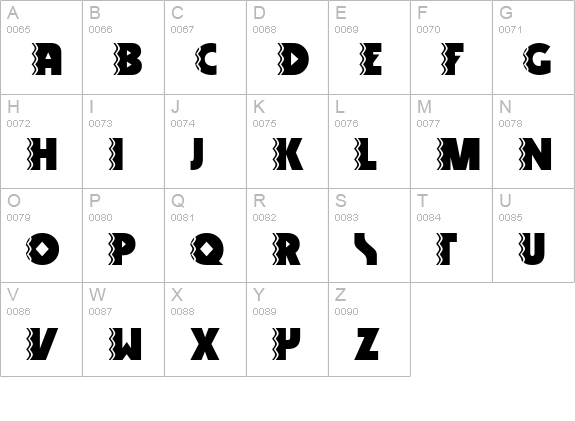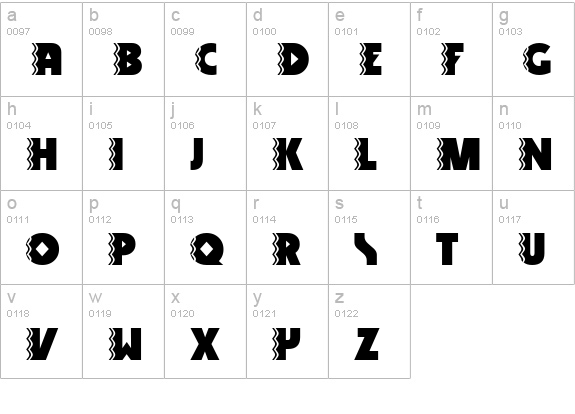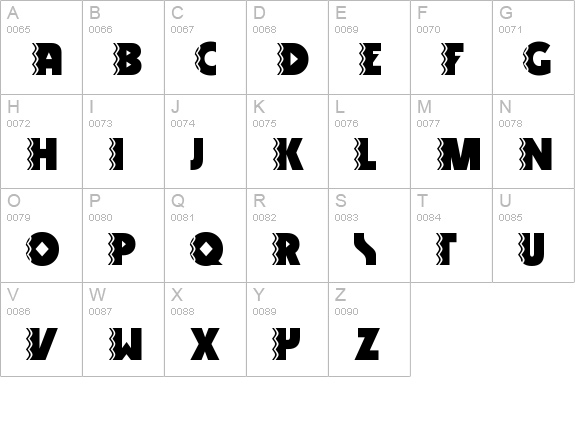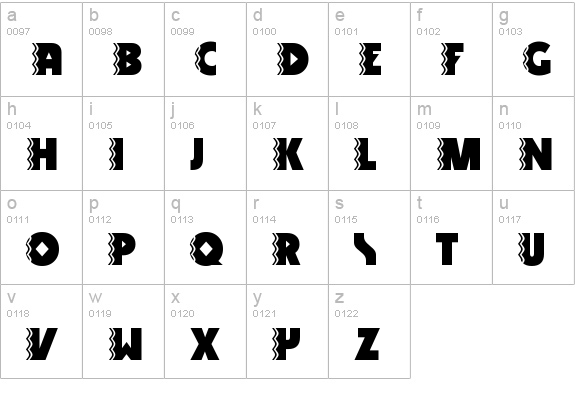
Snake Venom Font Details
Snake Venom font is a captivating and mesmerizing typeface that will inject a dose of intensity and danger into any design project. With its sharp edges and slithering curves, this font exudes a venomous energy that is both alluring and thrilling. The unique and intricate details of Snake Venom font make it a truly one-of-a-kind typeface that stands out from the crowd. Its bold and commanding presence demands attention, making it perfect for headlines, logos, and branding materials that need to make a lasting impression. But what sets Snake Venom font apart from other fonts is not just its striking aesthetics, but also its versatility. This font can adapt to various design styles, whether it be modern and edgy or vintage and nostalgic. It effortlessly adds a touch of sophistication and power to any project it graces. And the best part? Snake Venom font is absolutely free! You can download it without any cost at FontsMarket.com. This means that you can freely unleash the untamed and fierce spirit of Snake Venom font in all your creative endeavors, without breaking the bank. So, if you are looking for a font that embodies the essence of danger, mystery, and excitement, look no further than Snake Venom font. Its hypnotic charm and bold presence will leave a lasting impression on your audience, ensuring that your designs slither their way into their hearts and minds. Download Snake Venom font for free at FontsMarket.com and let your creativity run wild.